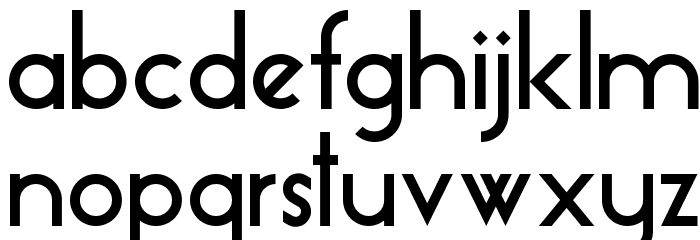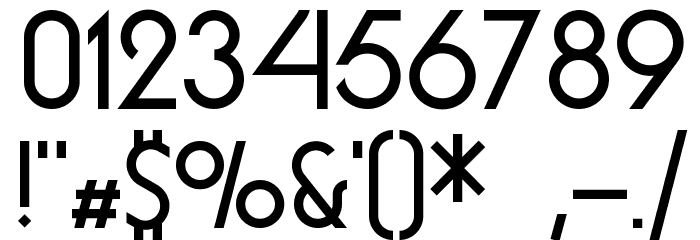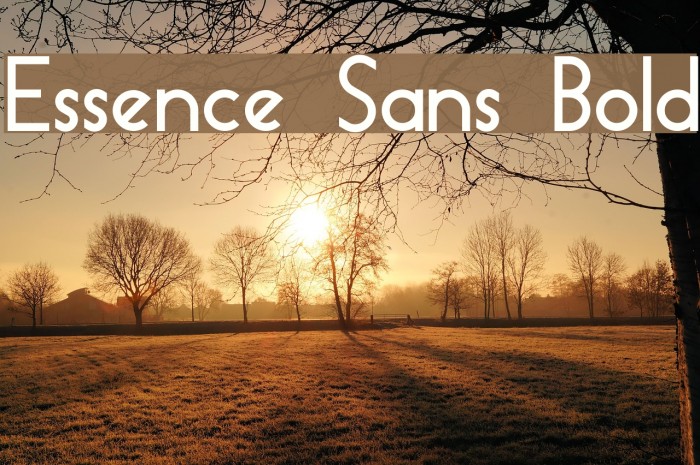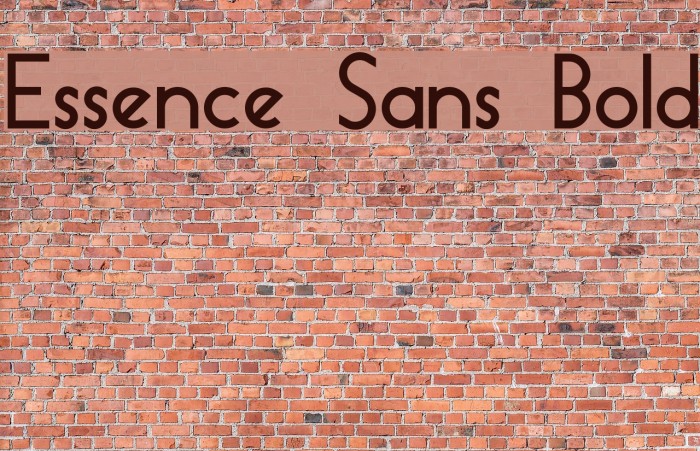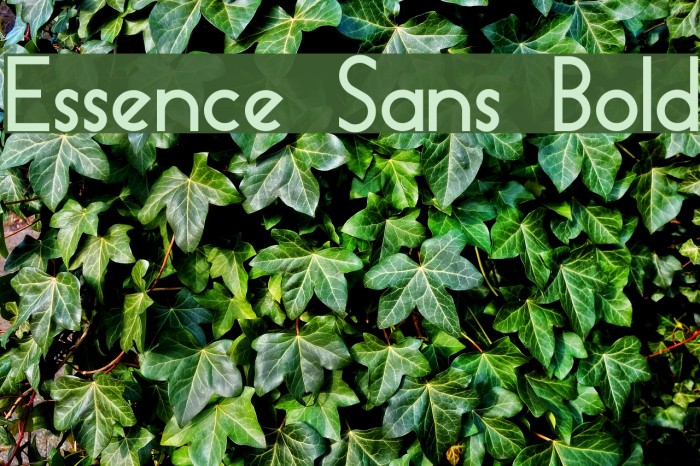
Essence Sans Bold Font
This font features a clean and modern sans-serif design with a bold weight. The characters are well-defined with a consistent stroke width, providing a sleek and professional appearance. The uppercase letters are tall and slightly narrow, while the lowercase letters maintain a harmonious balance with rounded edges. The numerals are clear and distinct, ensuring readability. Special characters are designed with precision, complementing the overall aesthetic. This font is versatile, suitable for a variety of design projects that require a contemporary and polished look.
A modern, bold sans-serif font with clean lines and balanced proportions.
- Proposed Projects: Ideal for branding, advertising, web design, and editorial layouts.
- Use Case: Headlines, Logos, Branding